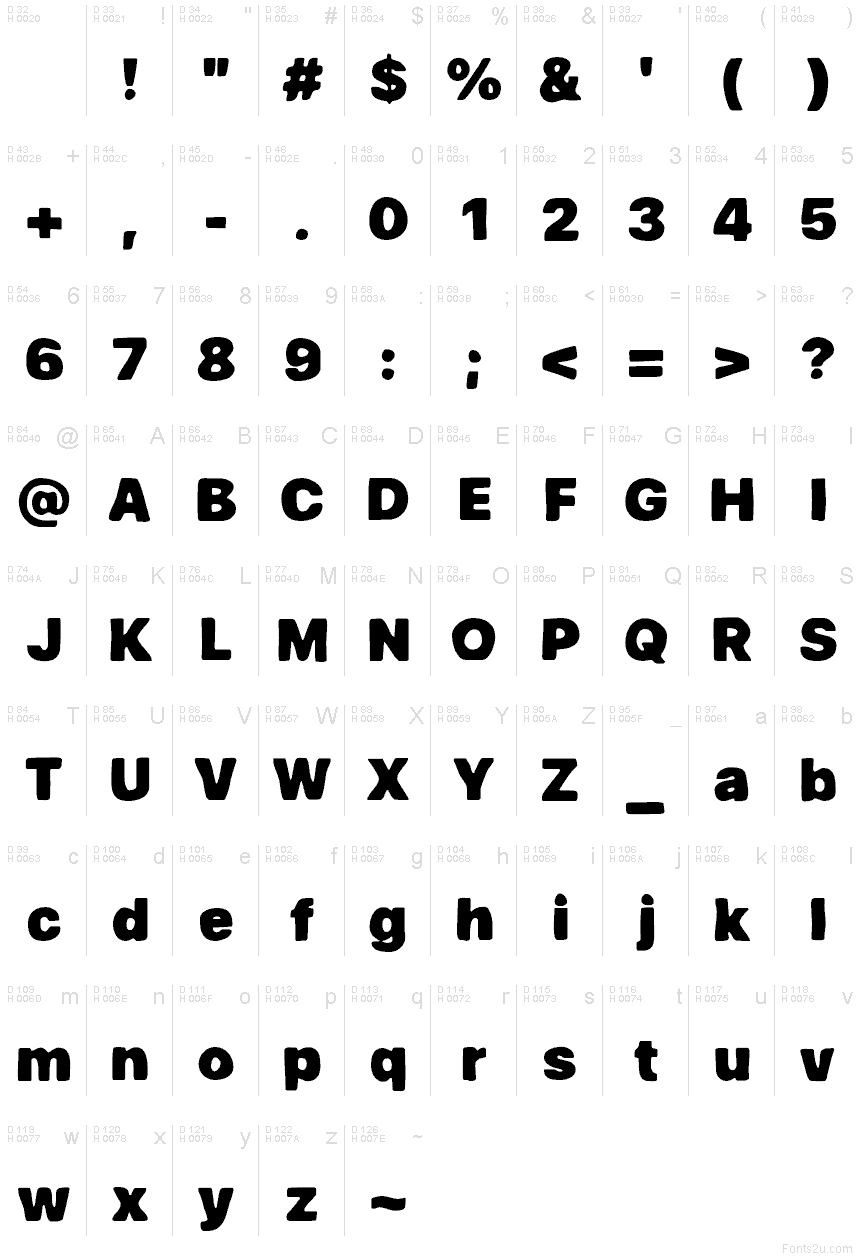
Gratis Neue
Gratis Neue font by Origin Type is a bold display font with a strong presence and modern aesthetic. It introduces clean lines, seamless curves, and a friendly impression with its warm appearance. Created for headlines and eye-catching design work, it keeps the reader engaged with minimal details at the intersection of art and practical typography scenes.
Explore Gratis Neue in album covers, digital ads, magazines, book covers, brochures catalogs, packaging boxes and stickers to mention a few examples. Its free public availability opens up multiple experimentation opportunities on printed branding projects too such as badges or business logos out there!